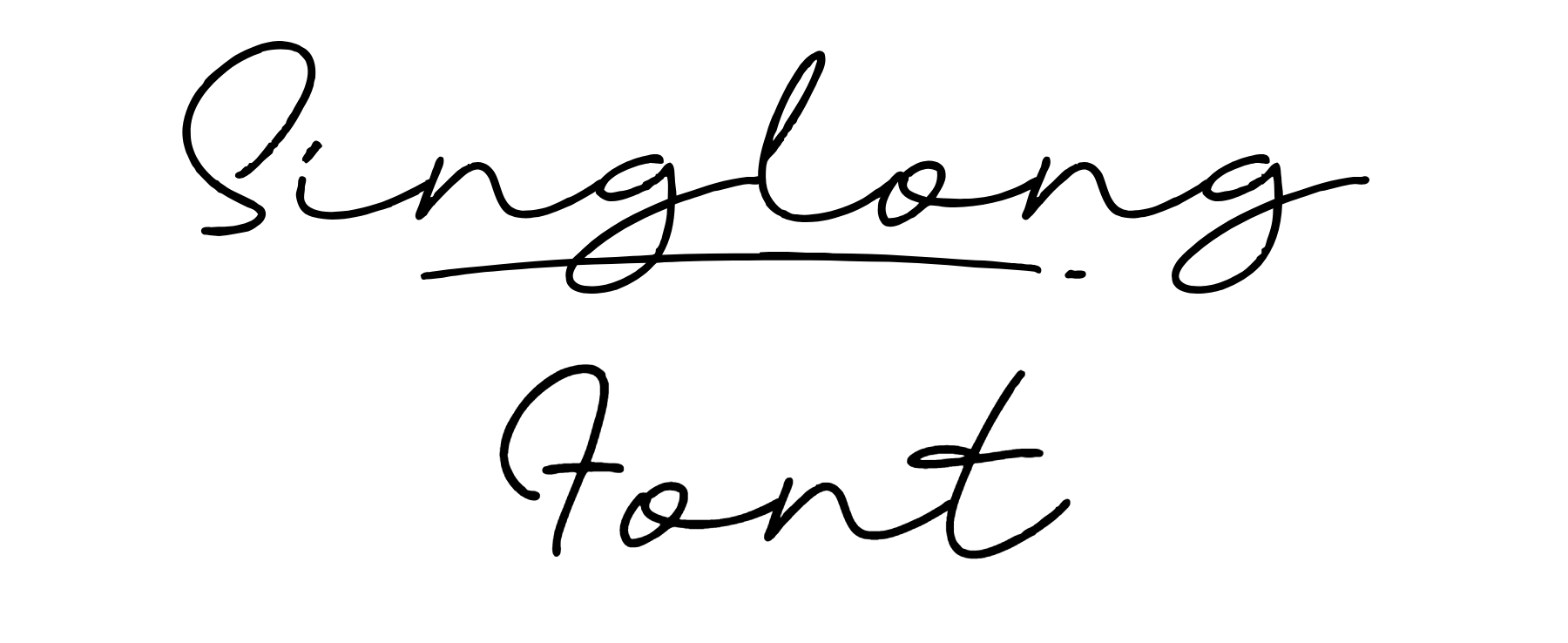
SingLong
SingLong is a handwritten font designed by Khurasan (2025). It has a casual, written-with-a-pen look that makes designs feel personal. You can download it for free and test it with your own words in the preview above.
What You Can Type With SingLong
With complete upper and lowercase letters and all ten digits, SingLong is ready for real wording, not just a single headline. Common punctuation such as &, !, ? and @ is included as well. It has 1 accented letters, but not the full set for Spanish or French, so test any non-English words first.
Ligatures and Smart Letters in SingLong
Where SingLong Works Best
Designers usually reach for fonts like SingLong when they're making greeting cards, journal pages and friendly social posts. Set it a bit larger than you would a normal text font. Handwriting styles lose their charm once they get too small to read comfortably.
Does SingLong have ligatures?
Yes. SingLong has ligatures that turn on by themselves in most design apps and browsers, so you don't need to do anything special.